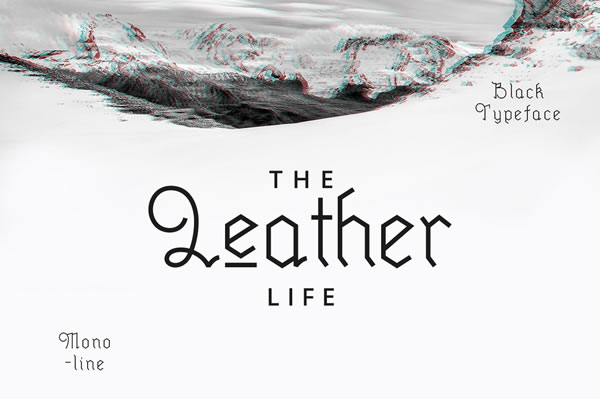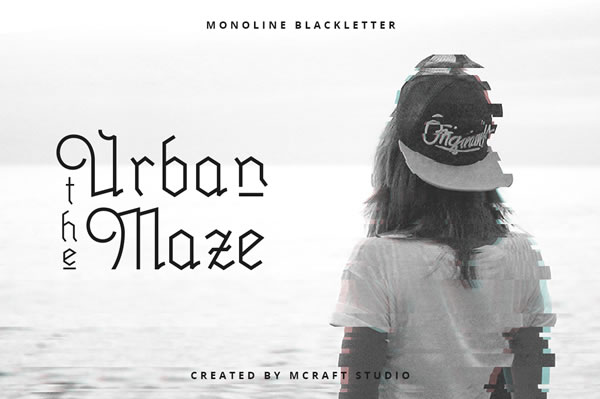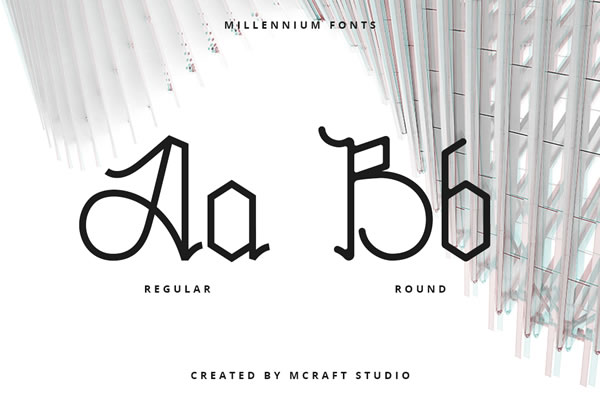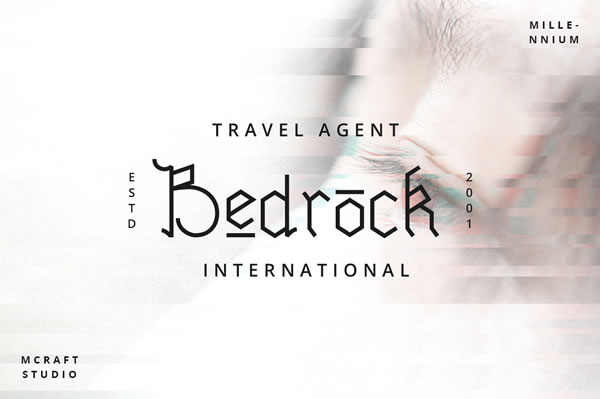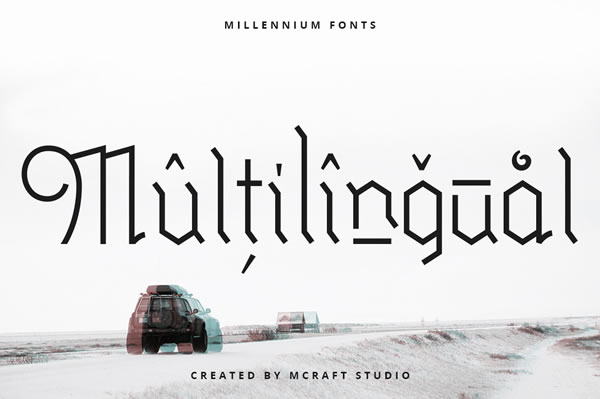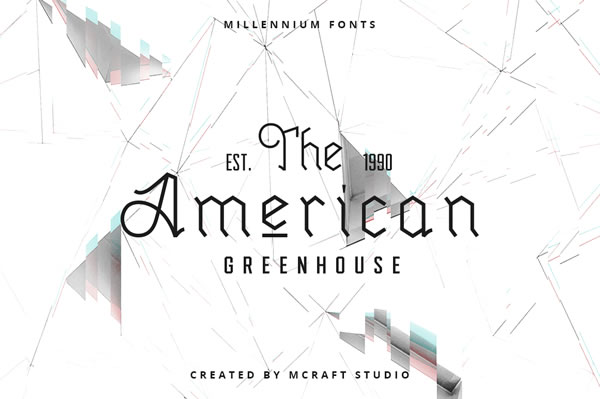
Introduction to Millennium Font Font
Fonts play a crucial role in design, and the Millennium Font font is a typeface that brings both character and versatility to any project. Whether you’re working on a branding project, a website, or a print design, the Millennium Font font offers a unique style that can elevate your work.
Millennium is a gothic-inspired font.
Key Features of Millennium Font Font
Why Choose Millennium Font Font?
The Millennium Font font is more than just a typeface – it’s a design tool that helps you communicate your message with style and clarity. Its unique character set and versatile design make it suitable for a wide range of applications, from elegant invitations to bold headlines.
With its carefully crafted letterforms and balanced proportions, the Millennium Font font ensures readability and visual appeal across all mediums.
What makes Millennium Font font special?
The Millennium Font font stands out with its unique design, exceptional readability, and versatility across various design applications.